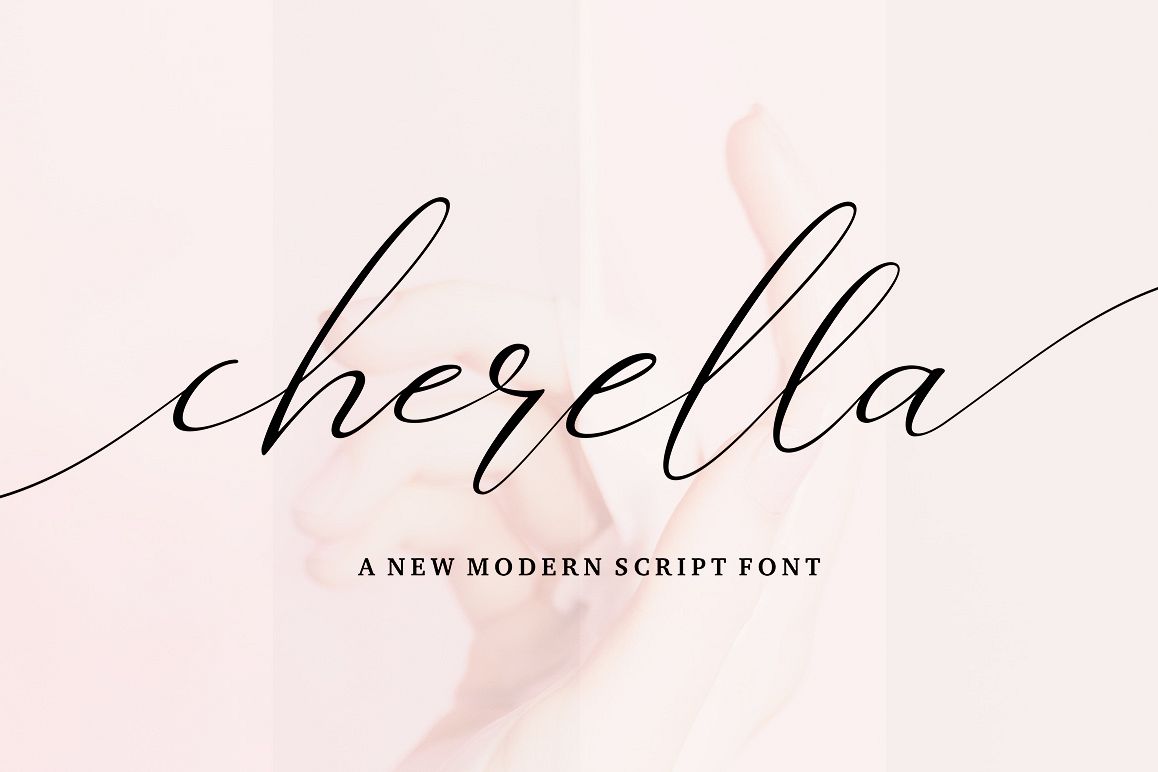
Cherella Script
Cherella
Cherella Uprigh
Cherella Bold Uprigh
Cherella Bold
Cherella Script is a modern calligraphy script, free flowing and moving baseline. It has a casual, yet elegant touch. Can be used for various purposes.such as logos, wedding invitation, heading, t-shirt, letterhead, signage, lable, news, posters, badges etc.Cherella Script features 401+ glyphs and 245 alternate characters. including initial and terminal letters, alternates, ligatures and multiple language support.Files included: